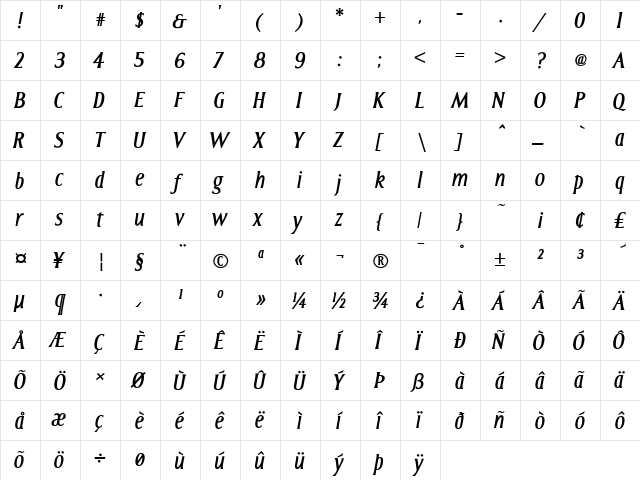
Pilgrim Italic
Design Context for Pilgrim Typeface
Pilgrim is a composed and adaptable typeface that performs quietly and consistently across a wide range of design contexts. Its italic angle brings a sense of urgency and motion to the letterforms.
Pro Tip: Try Pilgrim for annotation and caption copy alongside an upright companion — the contrast in angle creates a dynamic but ordered typographic system.